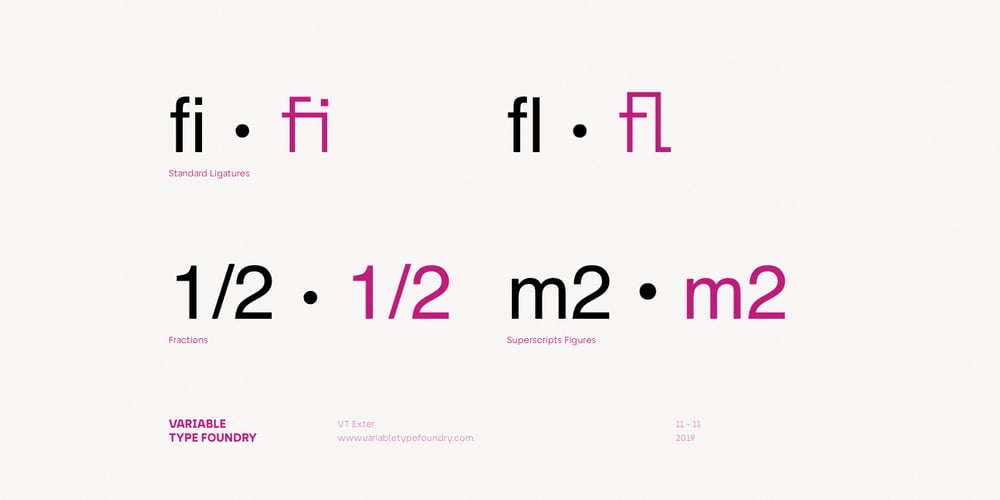
Exter
Exter font
Exter Font Family was designed by Lole Román and published by Variable Type Foundry. Exter contains 18 styles and family package options. Exter is a geometric Sans-Serif font inspired by the work of Russian artist Alexandra Exter that combines geometric and angled forms. Exter has been designed for advertising, posters, web, branding, packaging or any place where you need a clean and forceful voice. This personal character of its forms is due to the variety of weights it has (Black, Ultra Bold, Bold, Semi Bold, Regular, Light, Ultra Light, Extra Light and Thin). All are fully The character set is robust, covering extended Latin.